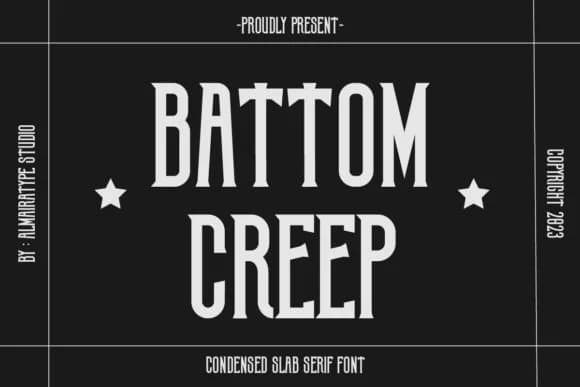
Picture a horror movie poster demanding attention with bold, aggressive letterforms. Battom Creep, designed by Almairatype Studio, is a slab serif that blends modern muscle with genuinely unsettling character. The sharp edges and weighty strokes deliver genuine menace across movie titles, horror-themed merchandise, album covers, and any project that demands to be seen.
This font shines across surprisingly diverse applications. Etsy sellers use it for spooky product packaging and Halloween merchandise labels that need to stand out in a crowded feed. Graphic designers reach for it when creating vintage vinyl album art or sports branding with real edge. The typeface also works well for DIY craft projects, event invitations with a dark aesthetic, t-shirt graphics with attitude, and poster designs that refuse to whisper. At display sizes, Battom Creep delivers impact with every letter's menacing personality on full display. Available as a single weight, the typeface rewards bold usage across print and digital work.
- Sturdy, Confident, Manly
Battom Creep Font is a slab serif font that shines as a display or heading face. Pair it with a clean sans-serif or serif font for body text — the contrast creates a clear hierarchy while the two styles stay balanced and easy to read.